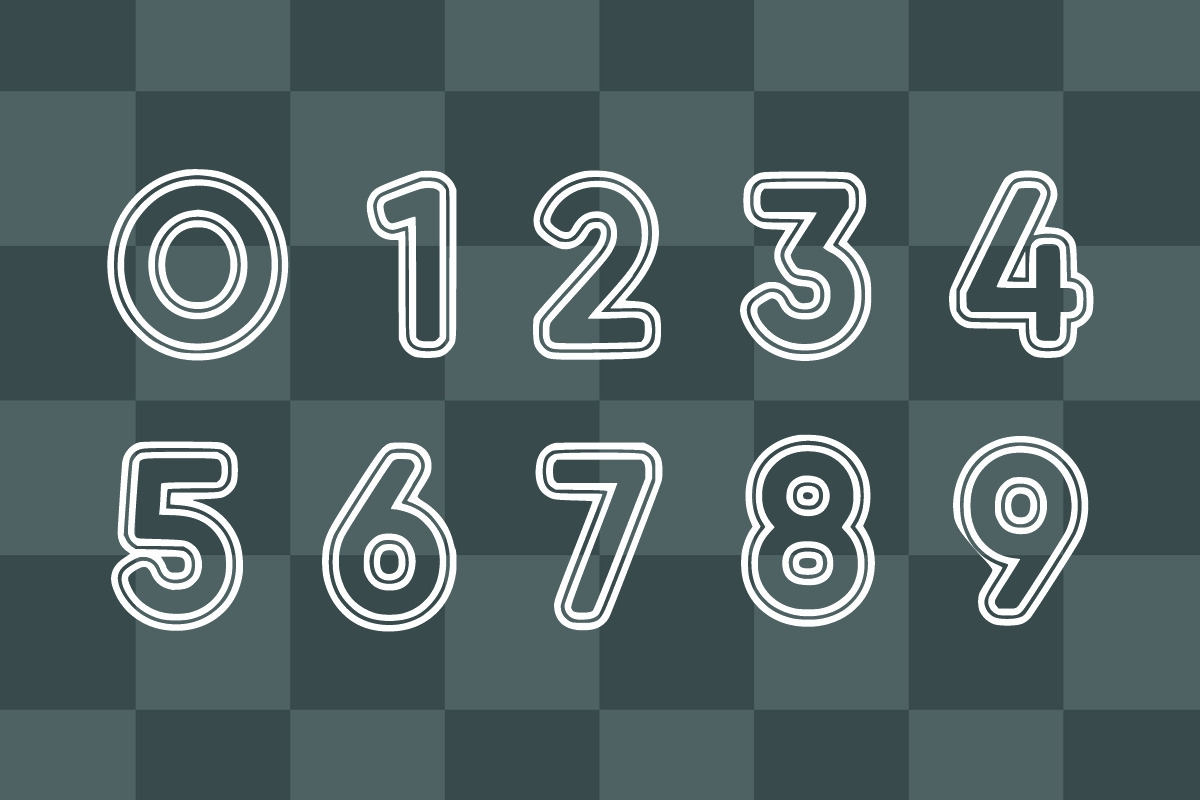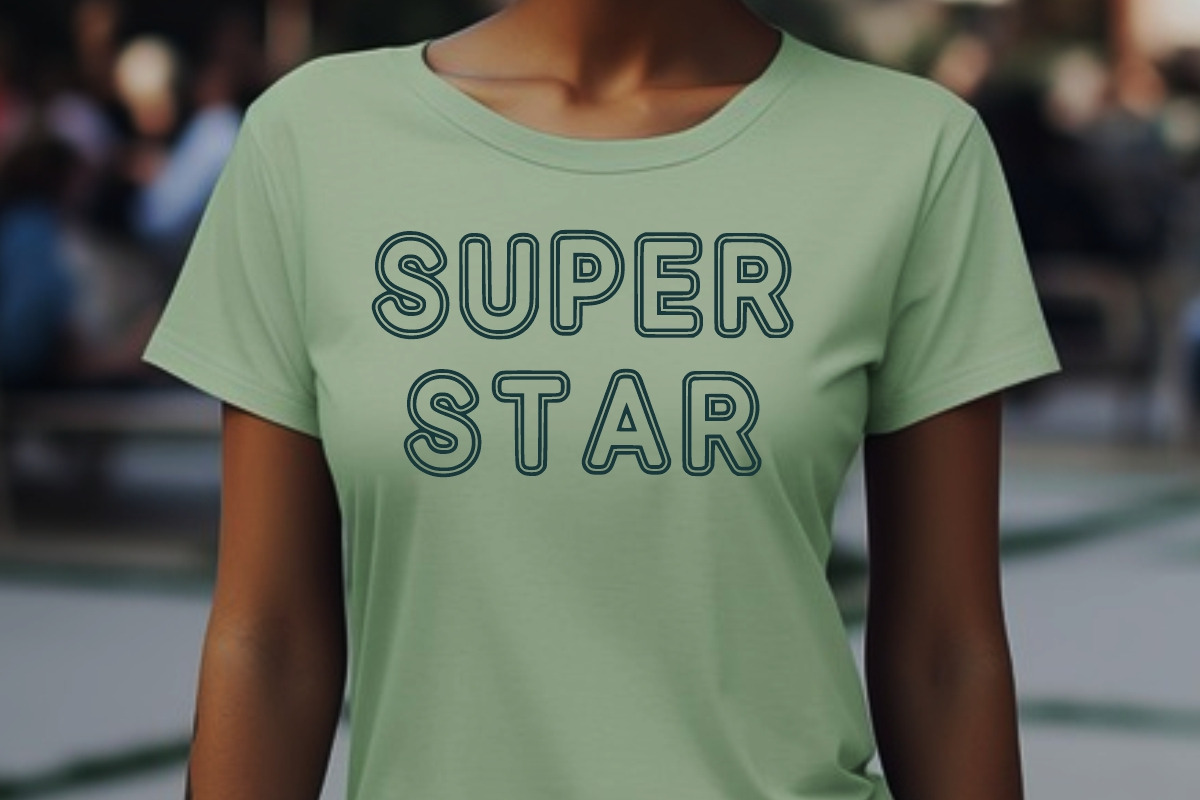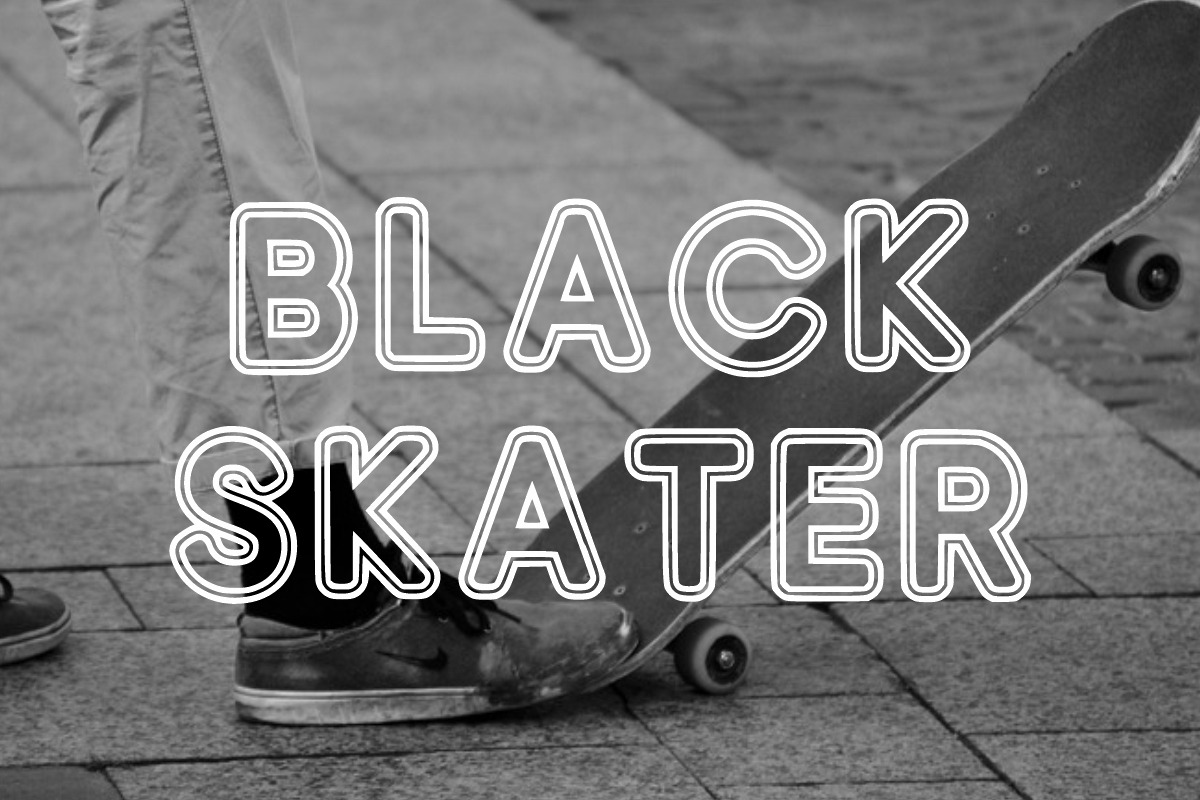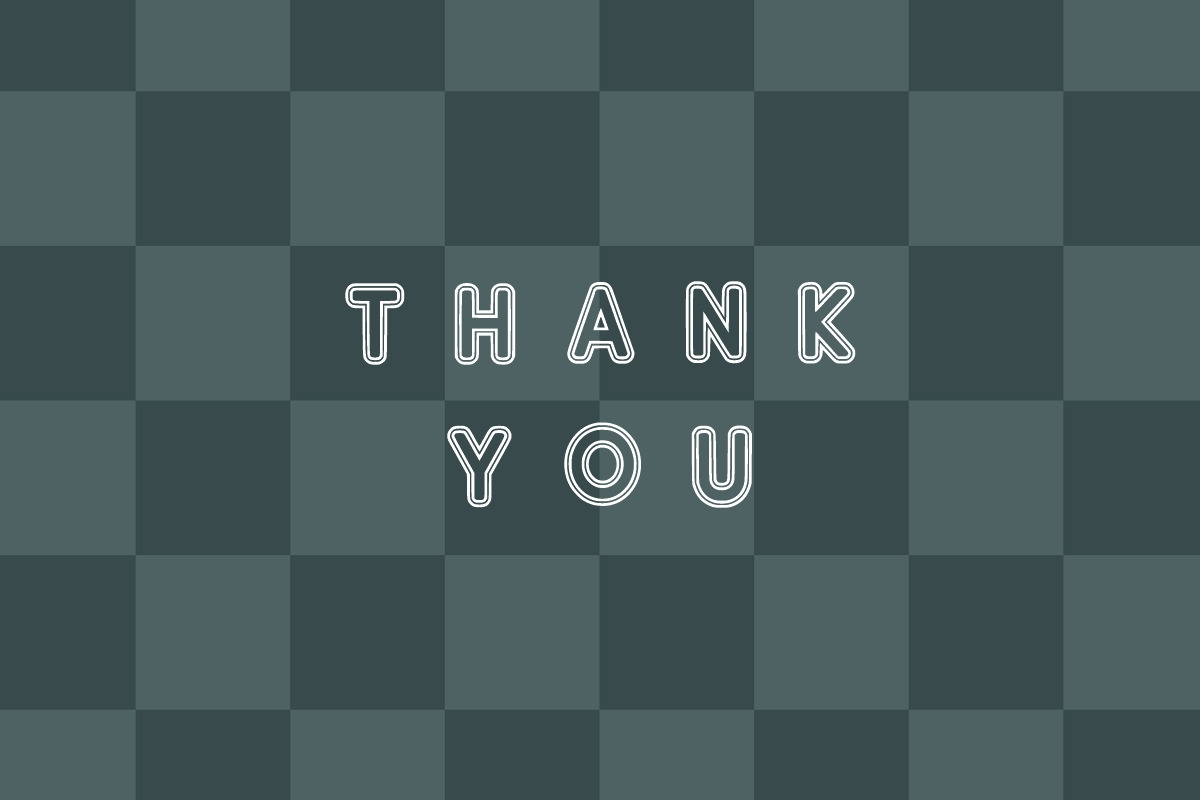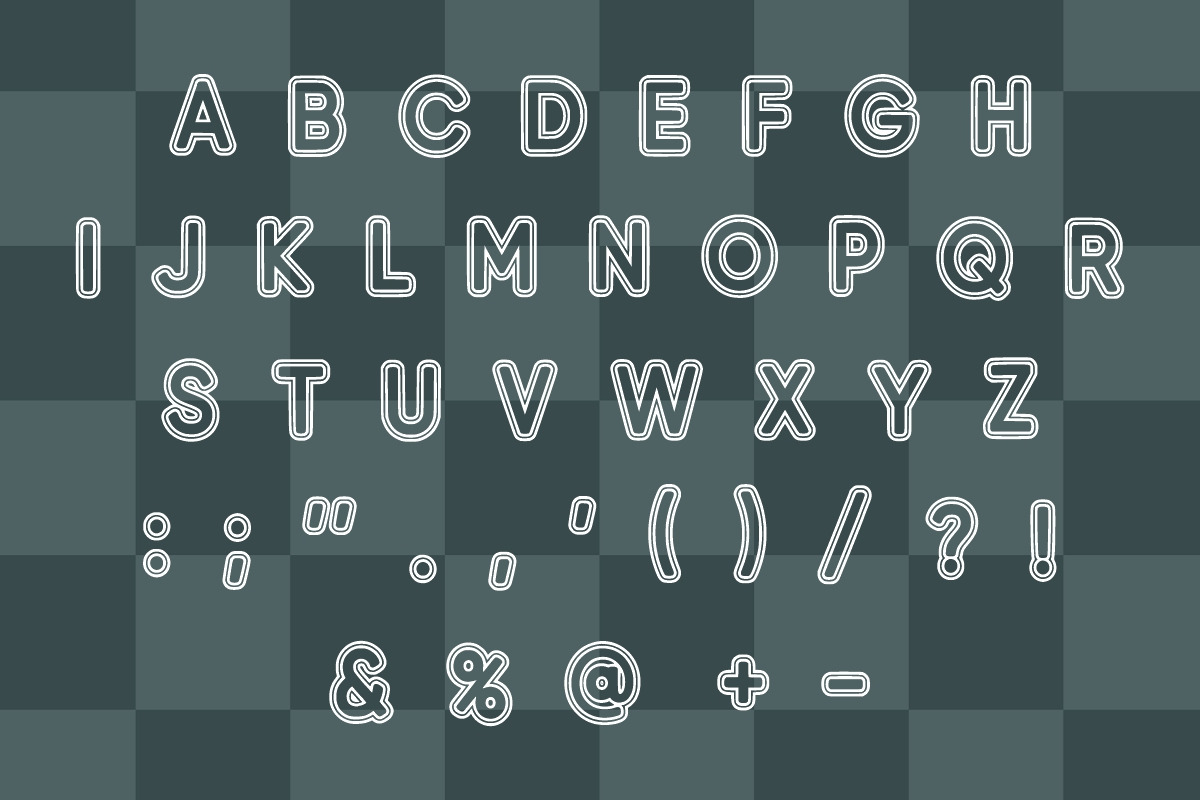
School Outline
School Outline is a playful double-outline display font featuring soft, rounded letterforms that radiate charm and cheerfulness. Its whimsical style makes it especially suited for winter and holiday-themed designs, bringing a cozy, lighthearted feel to any project. Perfect for product packaging, festive invitations, quotes, t-shirts, labels, posters, and more, this font adds a joyful touch to both digital and print applications. Whether you’re crafting classroom materials or seasonal merchandise, School Outline offers a fun, approachable aesthetic that enhances creative expression.